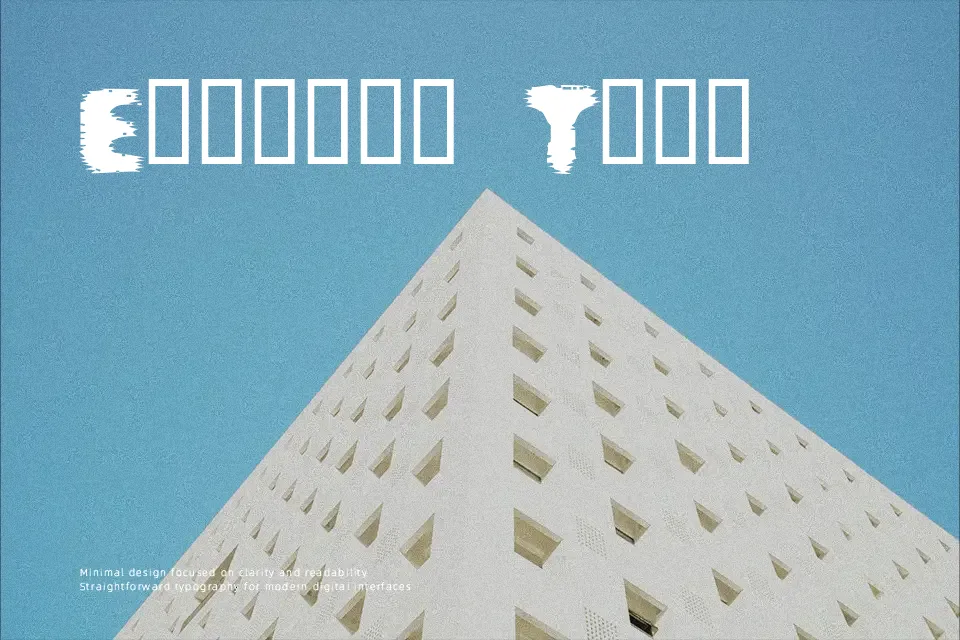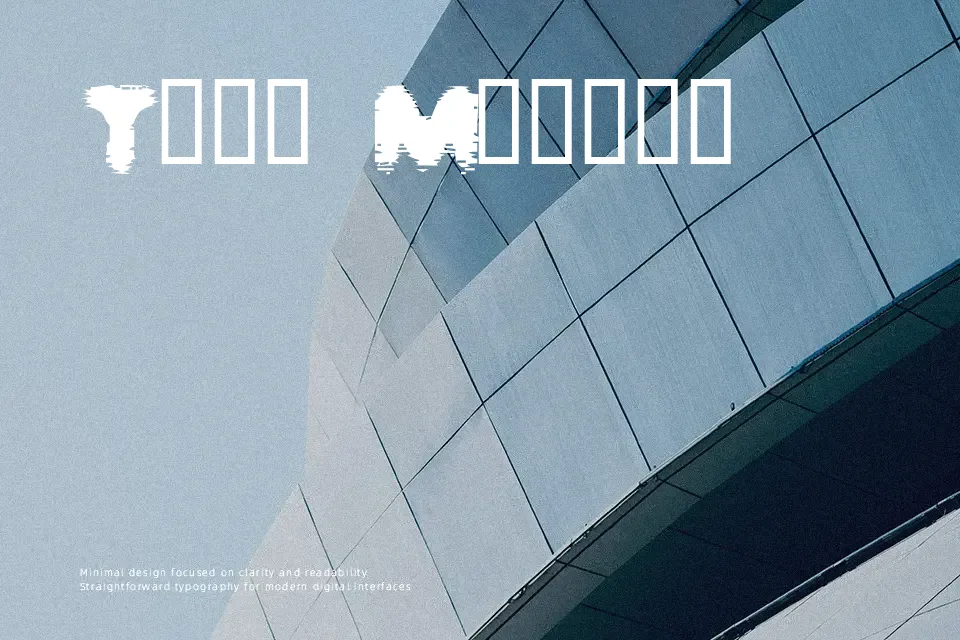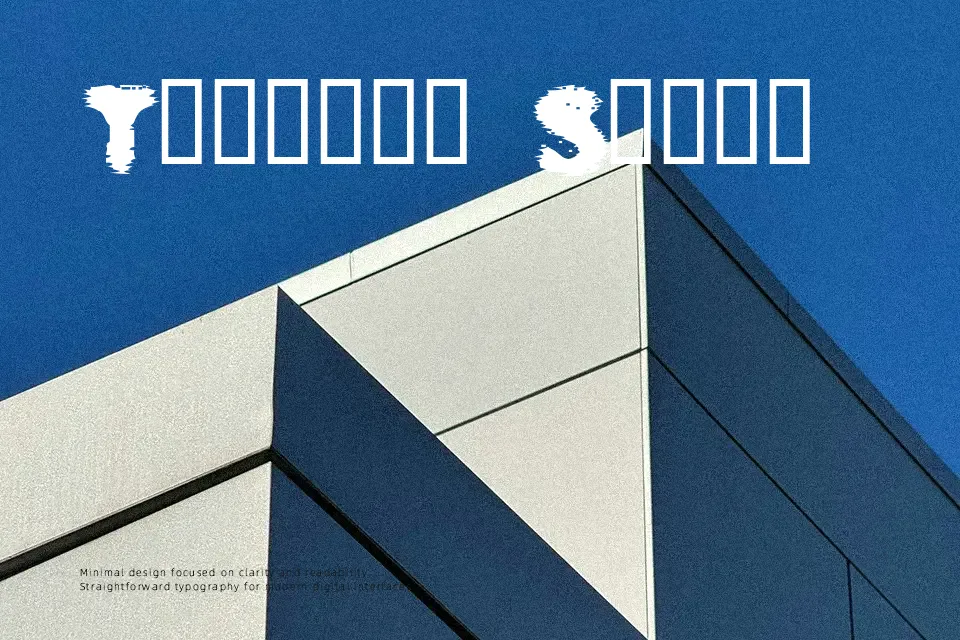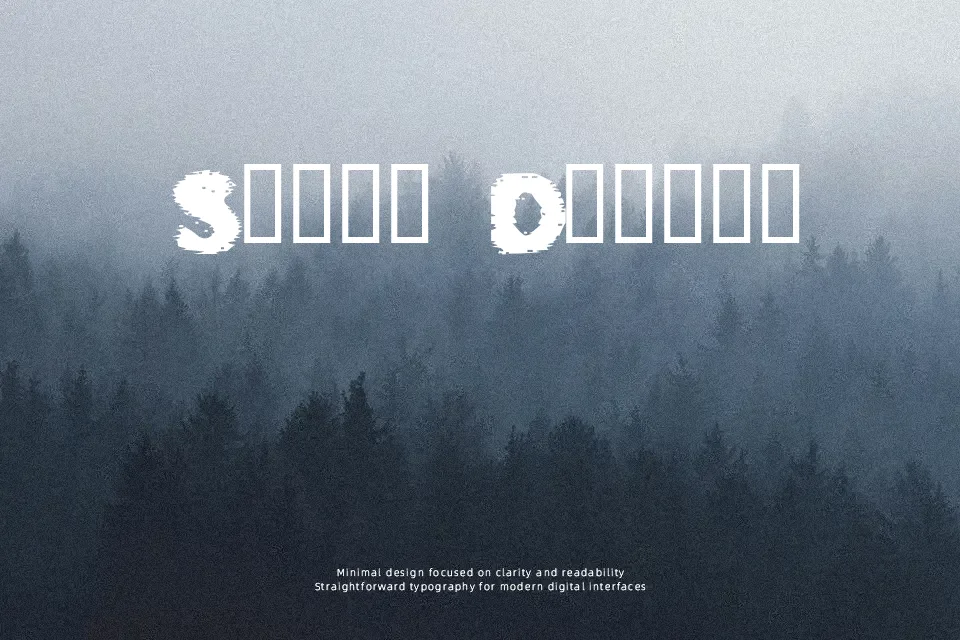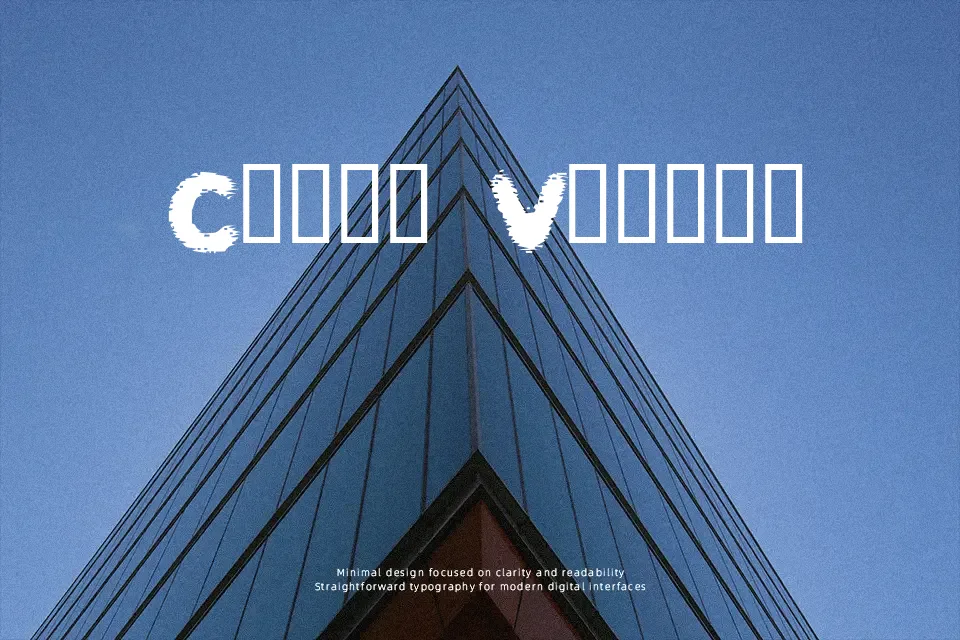
Undertow Font
Undertow Font commands attention through jagged contours, uneven stroke weights, and chaotic silhouette distressing across its display letterforms. The typeface exhibits tight, irregular spacing alongside compressed proportions that generate a gritty, high-contrast visual rhythm. Uppercase characters carry exaggerated angular fractures, though smaller punctuation and nuanced structural details quickly blur into visual noise when scaled down. The design thrives in punchy headline placements and bold streetwear graphics where raw atmospheric energy is needed. Dense text settings and continuous reading environments are entirely unsuited to these abrasive, fractured silhouettes, as extended viewing quickly fatigues reader comprehension.
Best For: heavy metal band merch, punk concert posters, skate deck graphics, extreme sports apparel
Not Ideal For: long body text, corporate brochures, mobile app interfaces, dense book layouts
Perfect for headline, logo, and music, with a dark and decorative style.